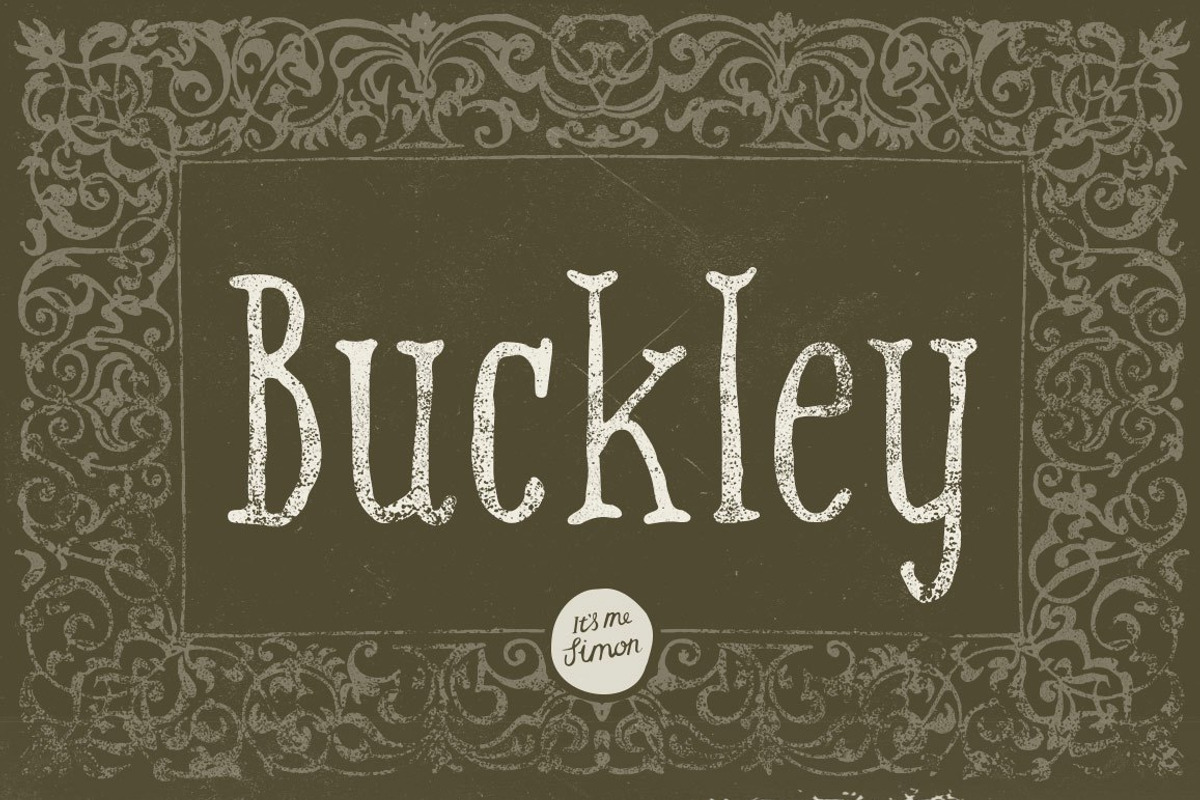
Serif font Buckley Serif
Buckley serif. It's a hand drawn, scruffy little typeface that looks like the illegitimate love child of Garamond and Cochin. 100% handmade.
With its unsteady lines, and decorative serifs Buckley will give your work an informal retro look and feel while retaining a little bit style.
It's quite delicate so is best suited as a display type, having said that its remarkable readable for areas of large body text.
Buckley serif includes;
- One weight
- Upper and lowercase
- Punctuation & Symbols
- Western European characters
- Central European characters
- South Eastern European characters